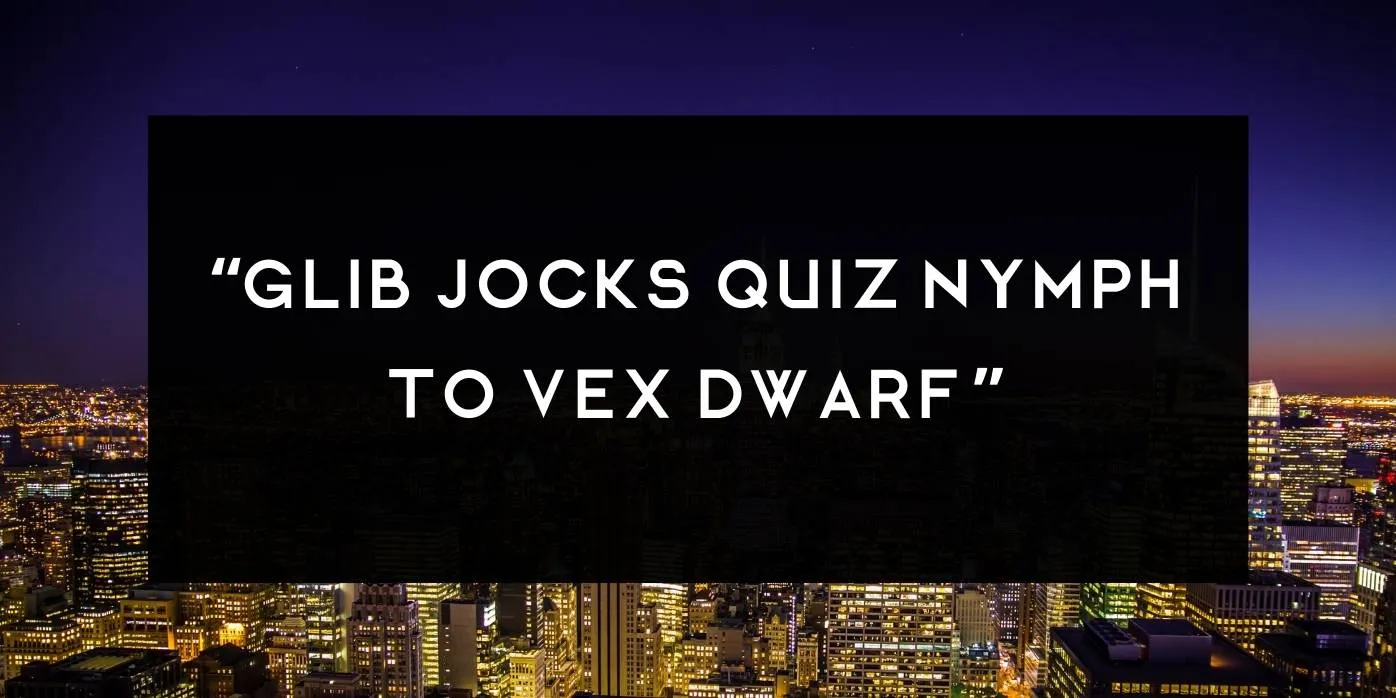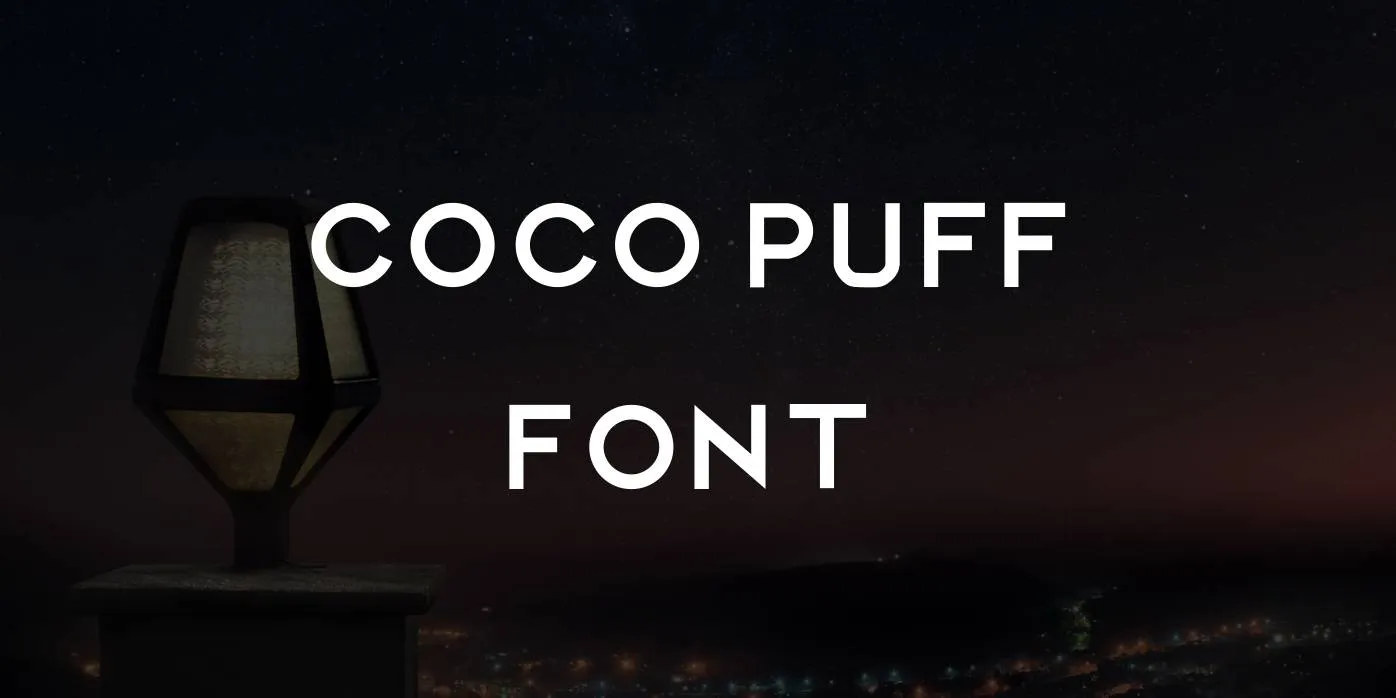
Coco Puff Font
Now we are introducing another simple but good-looking sans-serif typeface with a bold structure appearance named Coco Puff Font. This typeface family has designed by Viktor Hamburger. Coco puff will be downloaded 7917 times. And they have 1 style available.
This font family is not available on google font library but you can click the below button and can easily download it from our website. If you find any of the typefaces that are similar to that So the core sans font and Tempest font are the closest to this font. Usage This typeface is especially used for typography and T-shirt design. The designers used this typeface for any type of project such as logo designing, billboard designing, and any other projects.
This font style is looking very humanist type look and that is amazing to use in CSS and any designing platform like photoshop, illustrator, etc. If you are a designer and used that type of simple but unique typeface so this is amazing. You can easily use this typeface in any type of designing platform like Canva, Photoshop, Illustrator, CorelDraw, etc. That is the perfect choice for you.